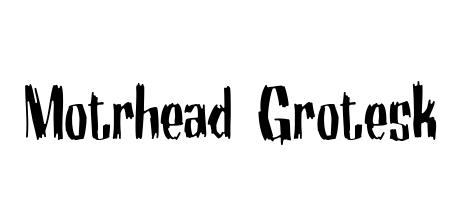
Motrhead Grotesk
Motörhead Grotesk: A rebellious typeface, raw and unapologetically loud. Its jagged edges and aggressive serifs scream rock and roll, a visual echo of the band''s powerful energy. Perfect for capturing a gritty, defiant attitude, it’s a font that bites back. A bold statement, visually charged and intensely memorable.